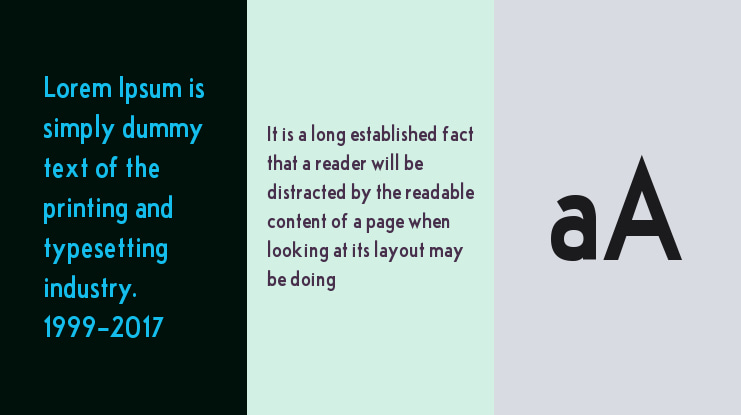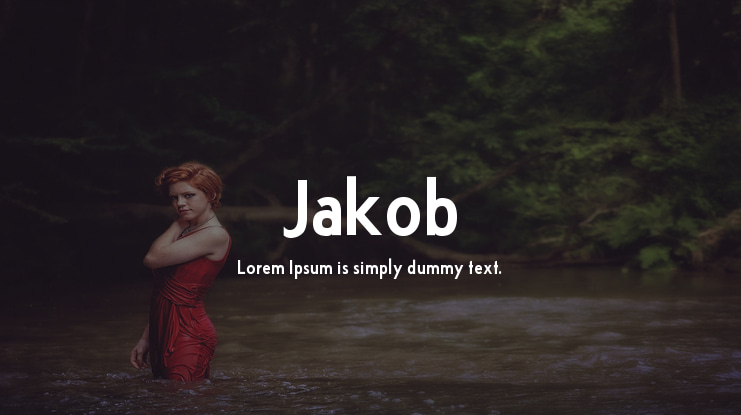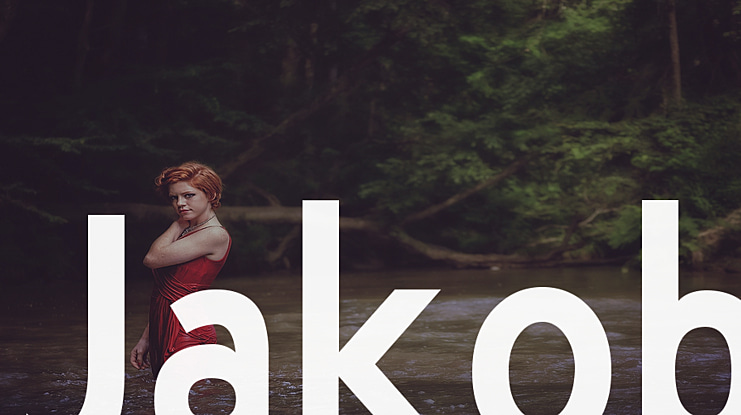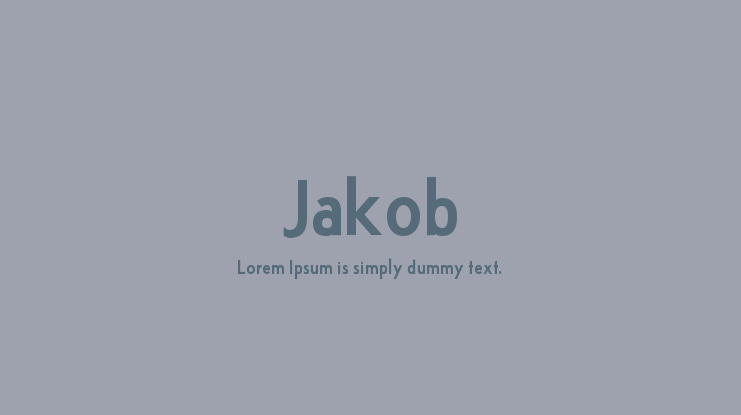
Jakob Font Family
One of Uwe Borchert’s near-lost fonts. Jakob is an industrial grottesk done in a 1920s style. It is based on Beteckna v0.2 and inspired by Erbar Grotesk. It is intended for signmaking and labelling, and not for setting long text.